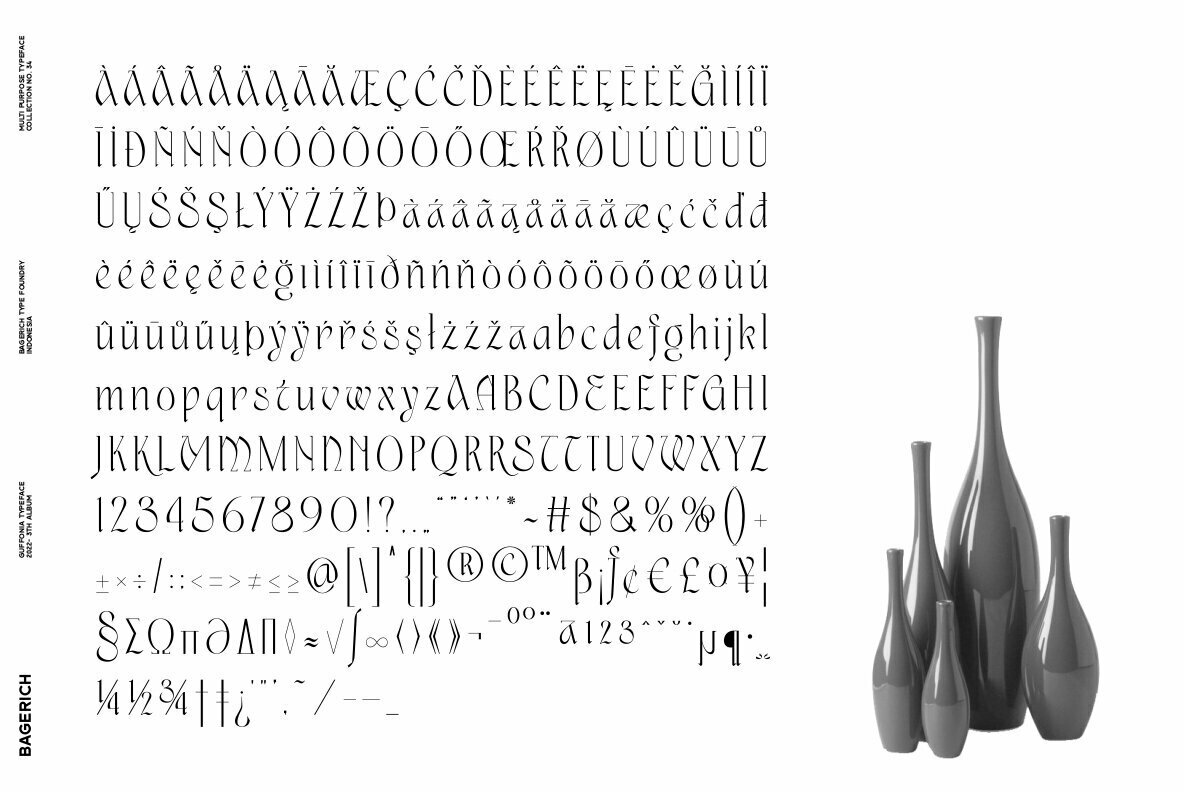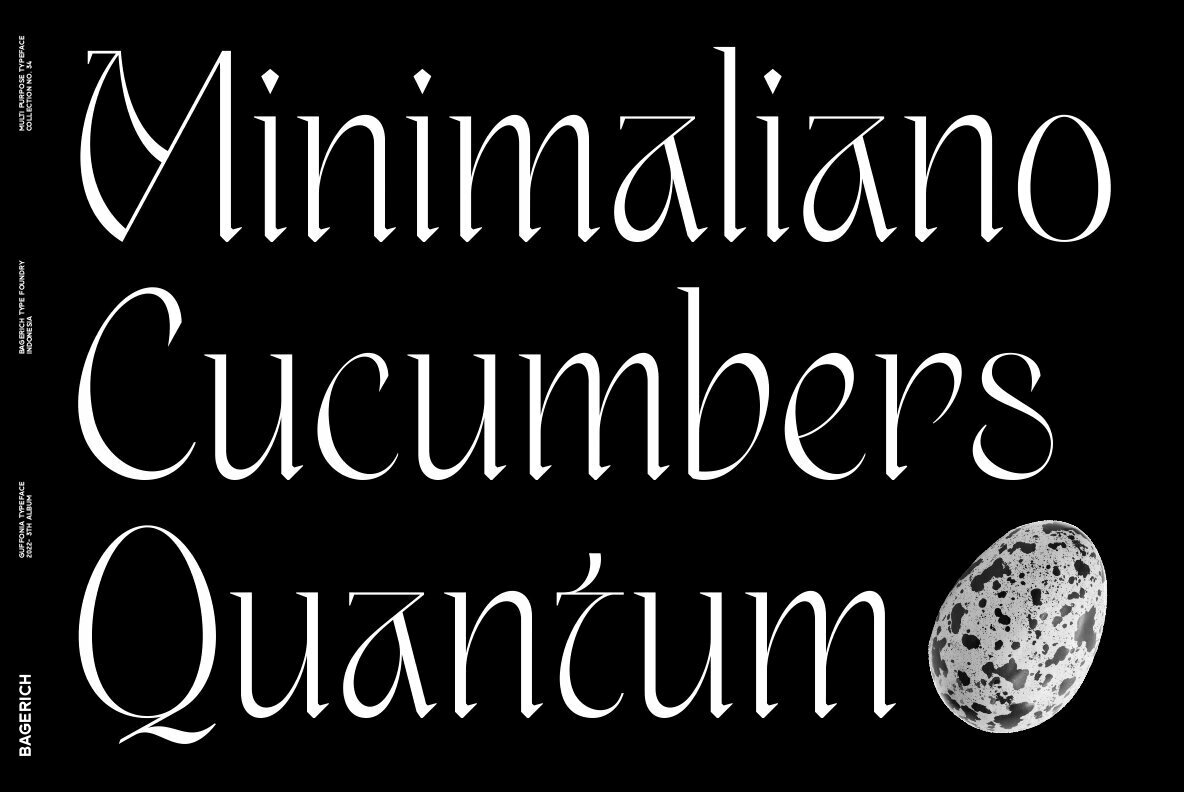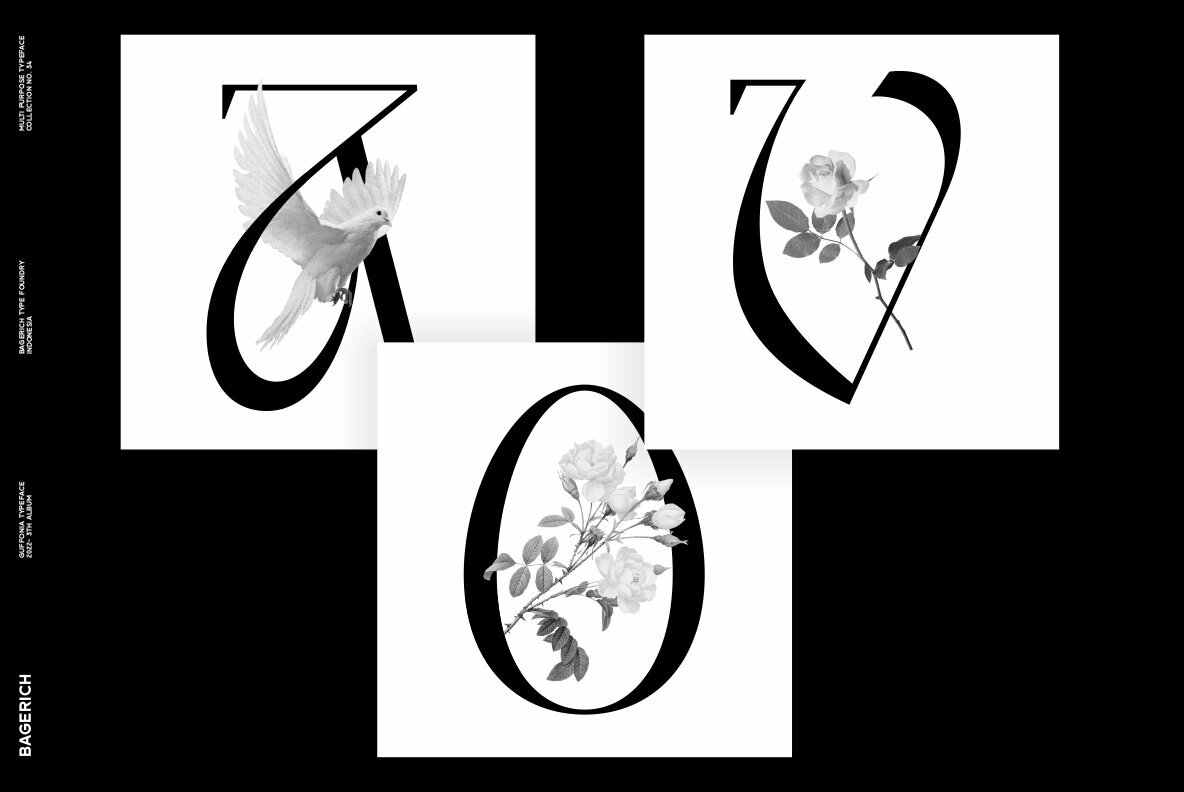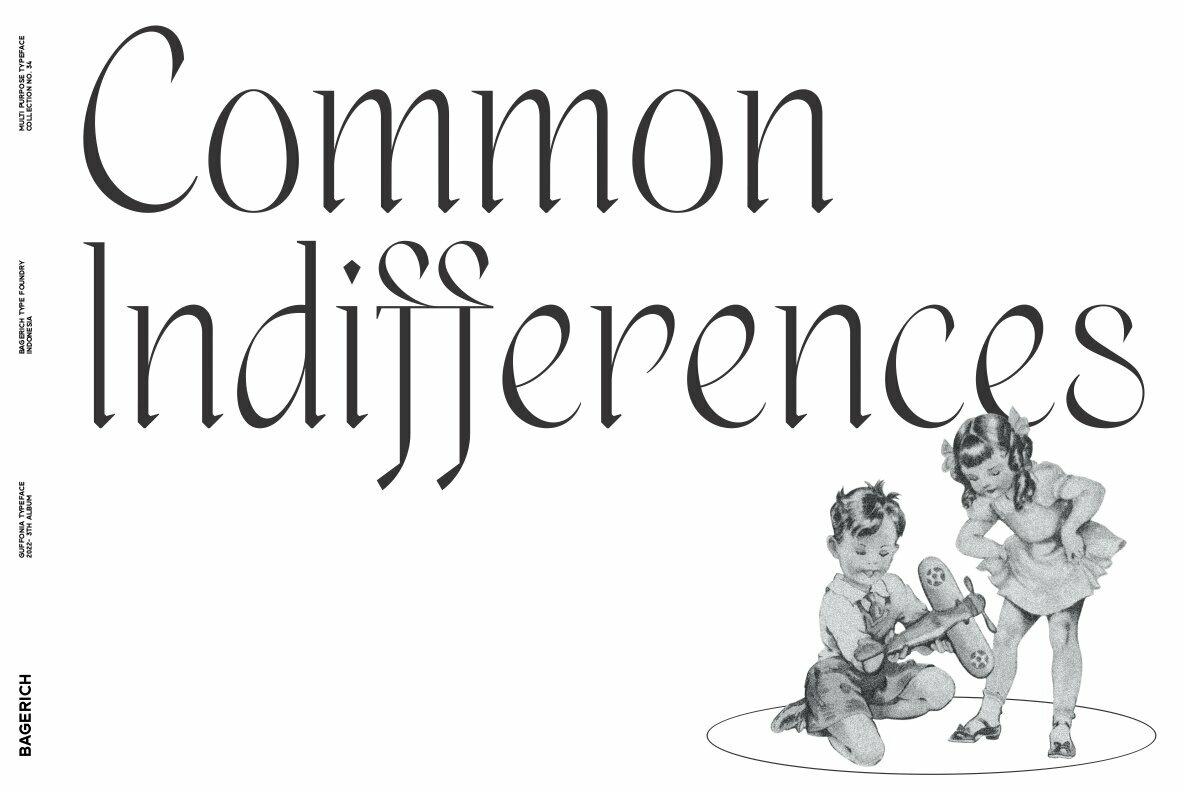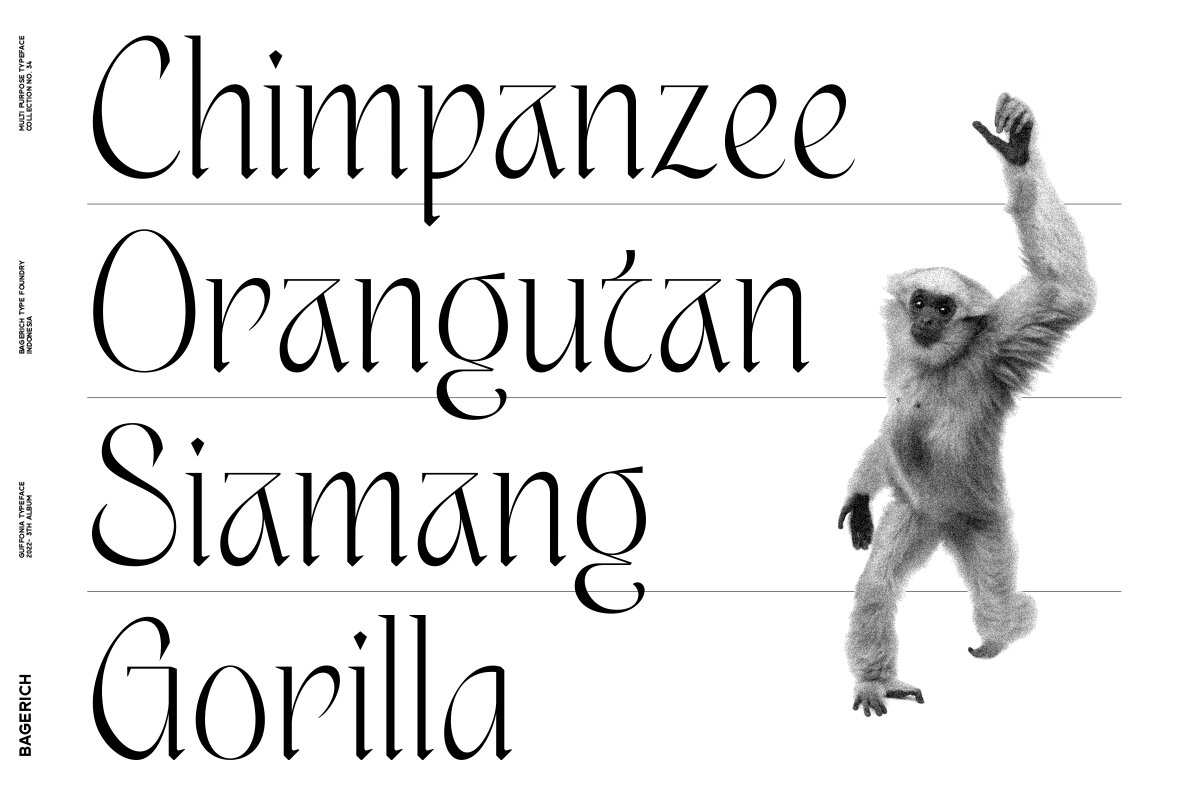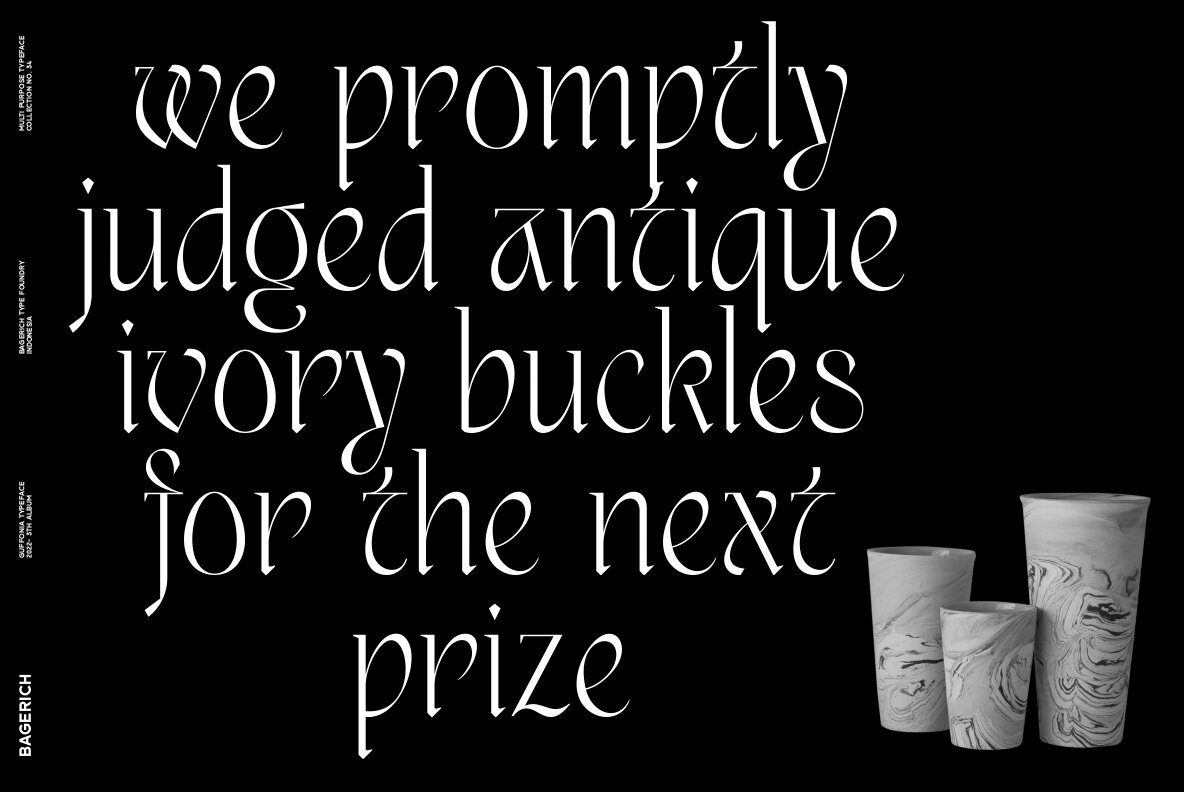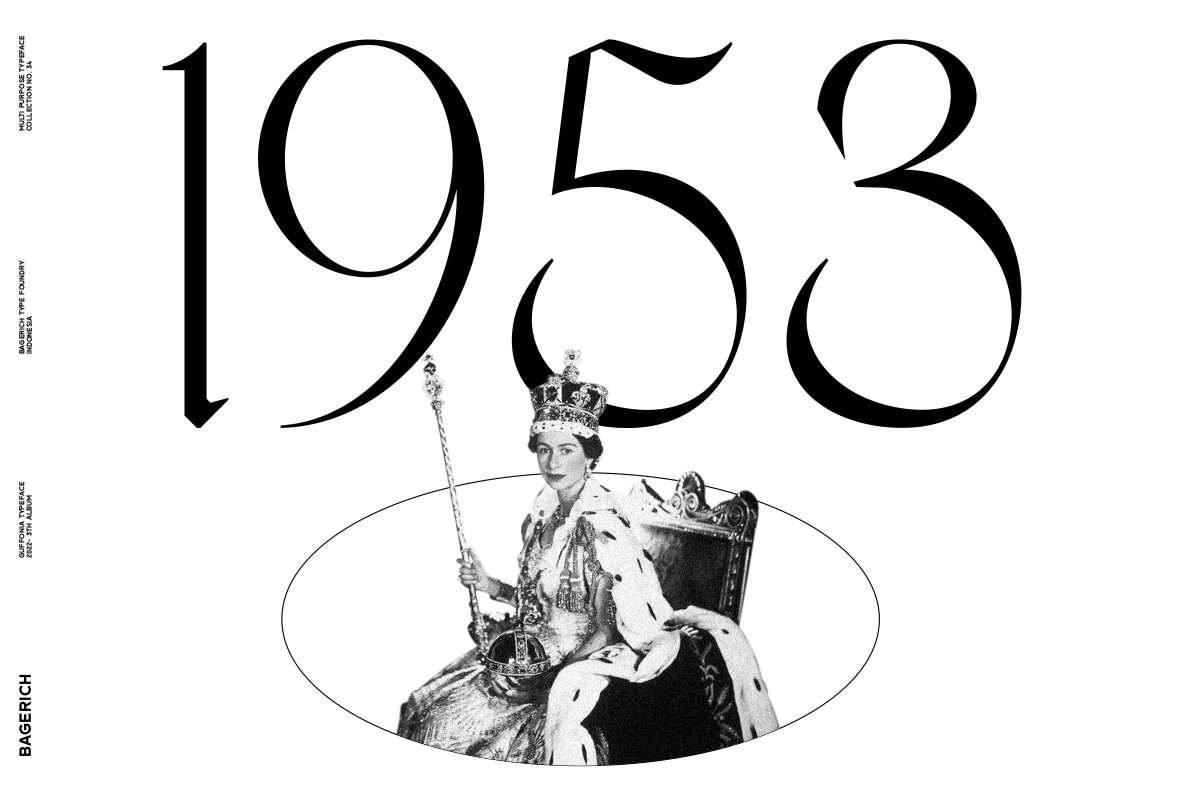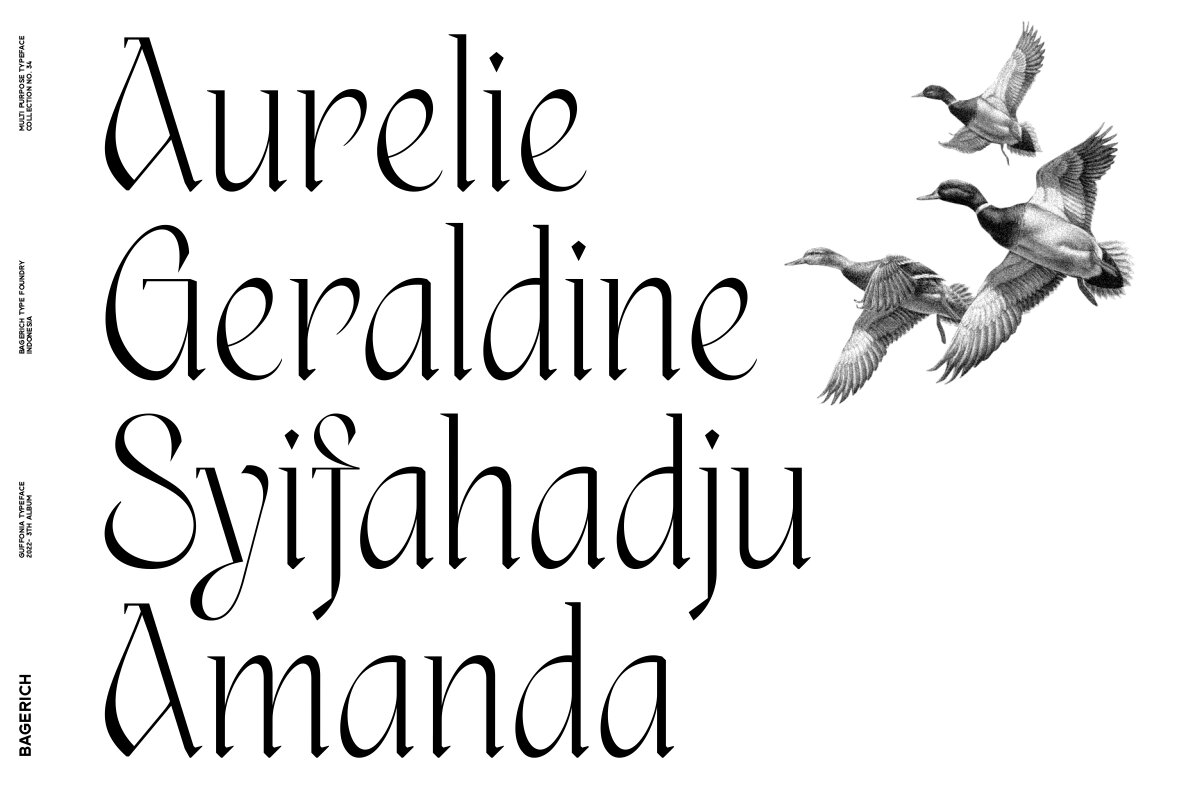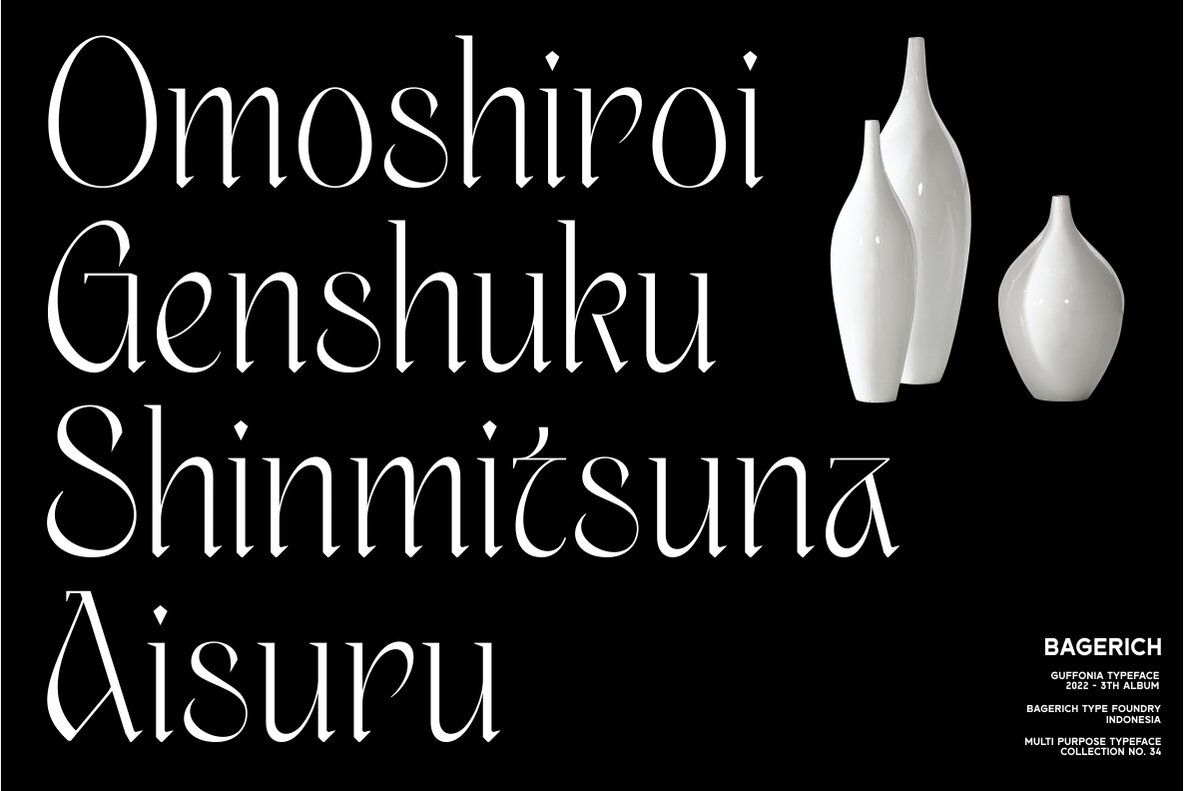
Guffonia Font
Guffonia Regular
Guffonia is high contrast serif font features a mixed modern-classic design. Guffonia support multilingual languages, numbers, punctuation and alternative-ligatures. Create unique & beautiful logotype, use it as an elegant solution for your next magazine layout, or choose Guffonia for any graphics that require a sleek look with a elegant flair.